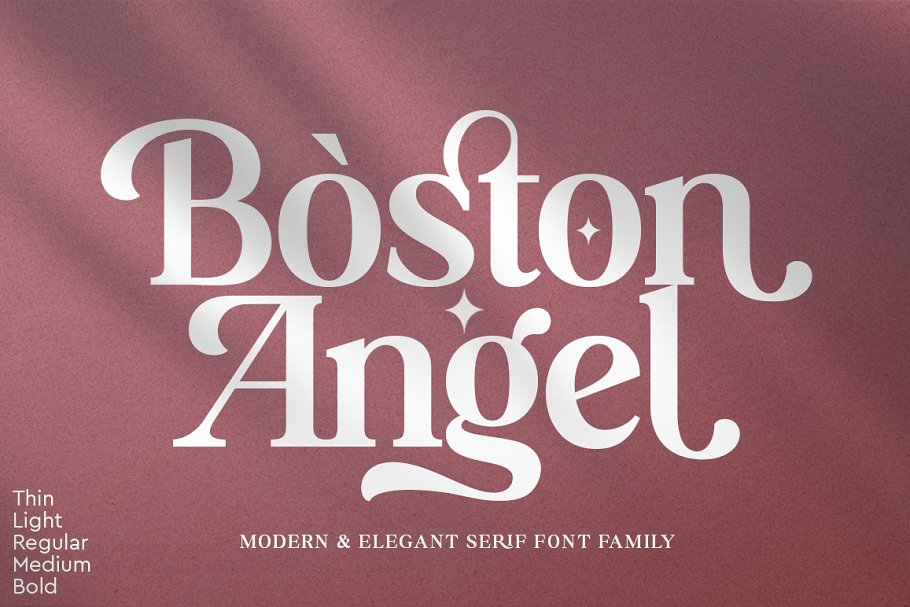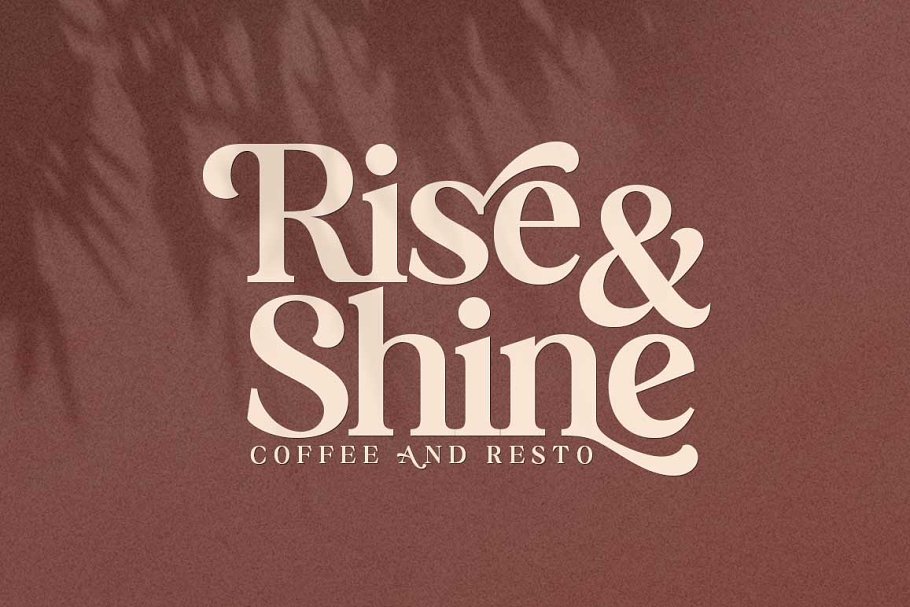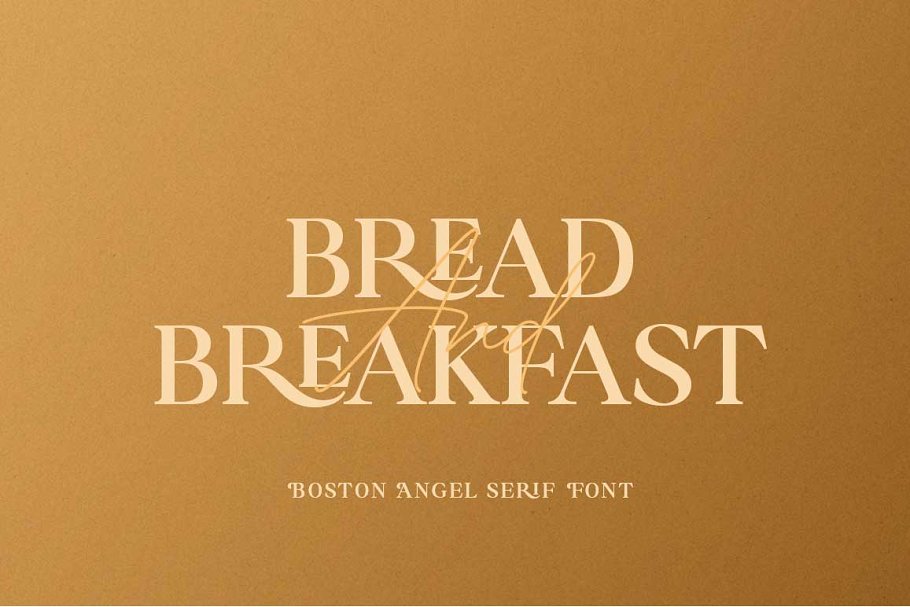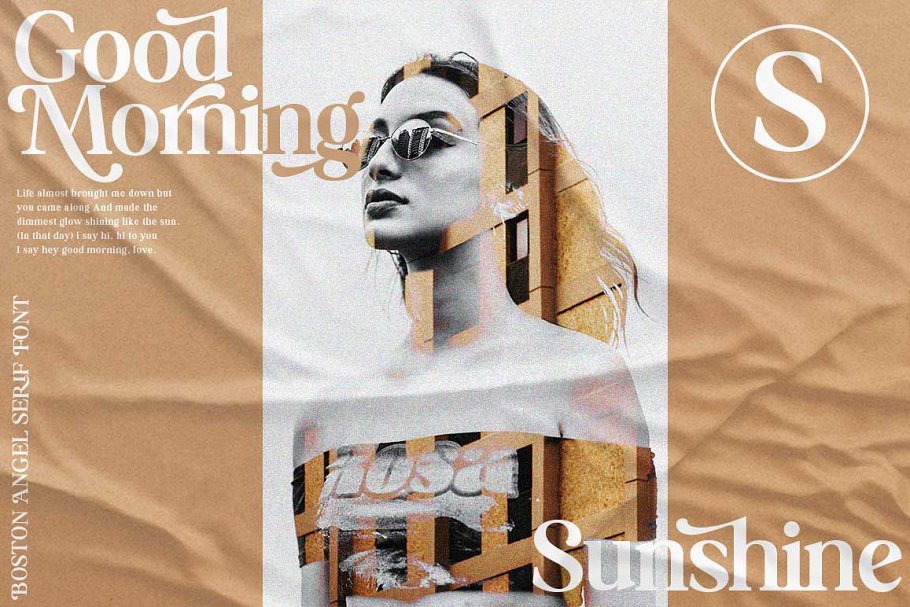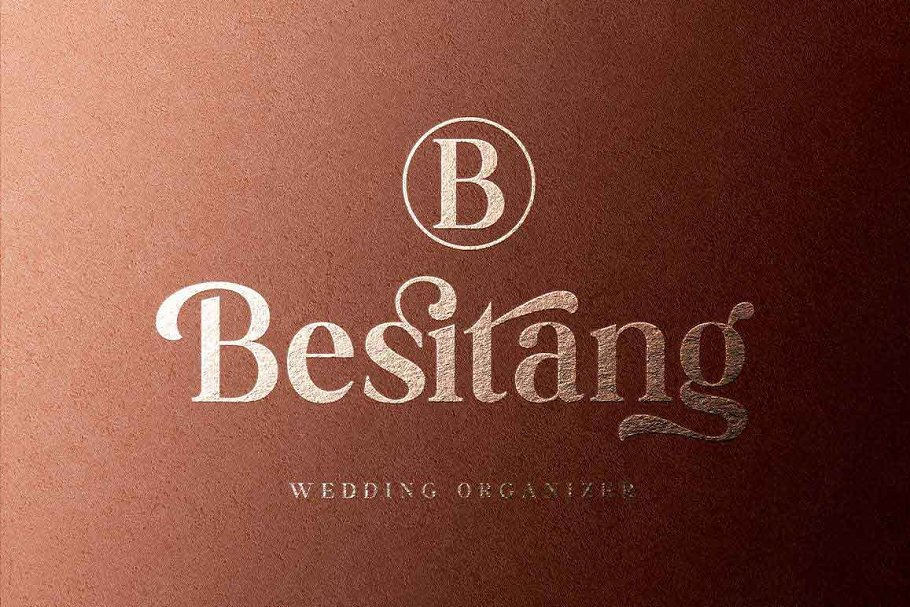
About the Boston Angel Serif
Boston Angel Serif is a modern vintage serif font packaged in a modern and classy style, complete with access to your OpenType features to access a large selection of alternates letters and ligatures, the choice of letters you like from variations of uppercase and lowercase letters to get a display luxurious and elegant, Unique, playful and versatile serif family with 35 ligatures and 114 alternatives to beautify the design you like
This font is perfect for branding projects, Logo design, Clothing Branding, packaging, magazine headings, advertising, T-shirts, postcards and much more, What is included: Boston Angel ThinBoston Angel LightBoston Angel RegularBoston Angel MediumBoston Angel BoldFeatures• All Uppercase and Lowercase• Number & Symbol• Supported Languages• Alternates and Ligatures• PUA EncodedIf you have any questions, don’t hesitate to contact me